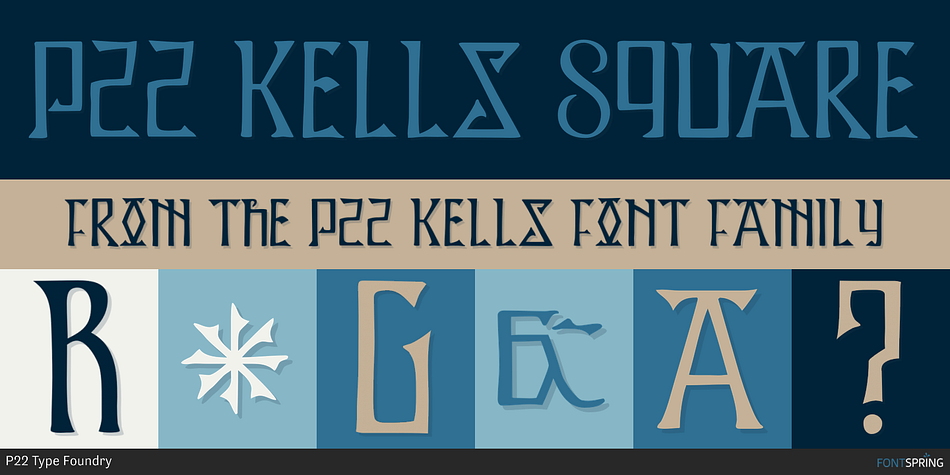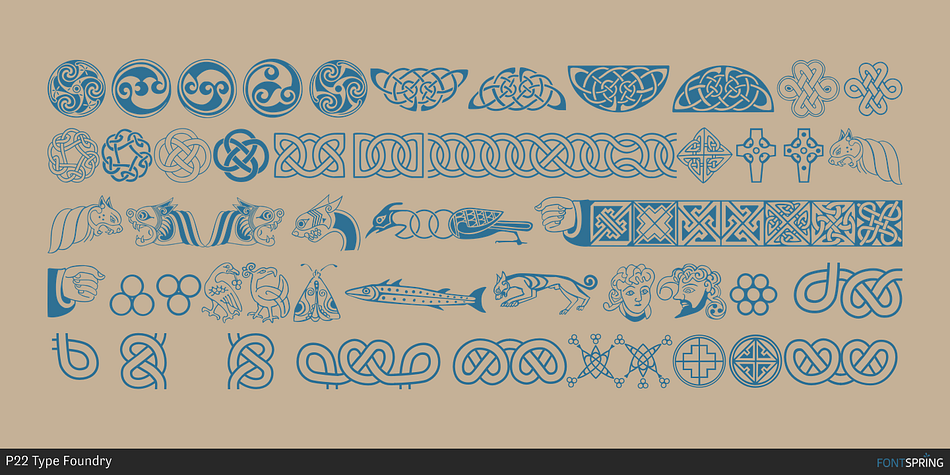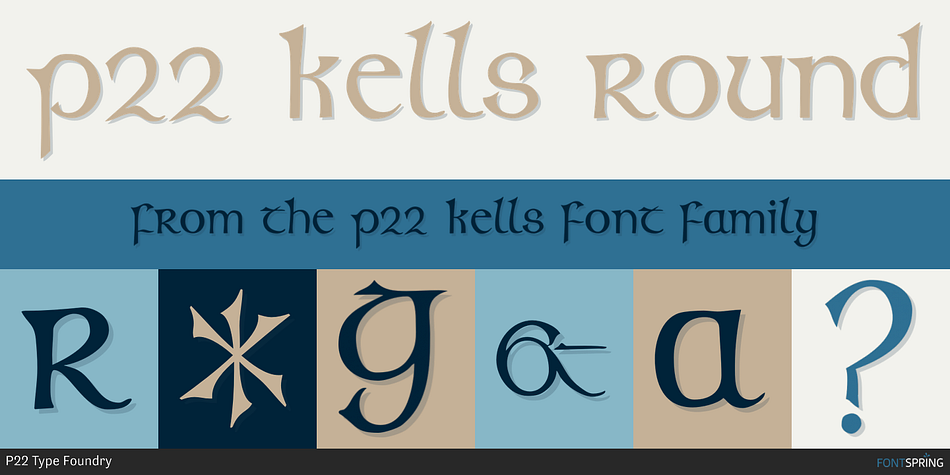
P22 Kells is a dingbat, historical and art nouveau font family. This typeface has three styles and was published by P22 Type Foundry.
The Book of Kells is a ninth century gospel created in the British Isles and is considered to be the finest existing example of early Celtic art. The book itself is now housed in the Trinity College Library, Dublin. This computer set combines historical accuracy with functional readability and features 72 elements and linking borders.